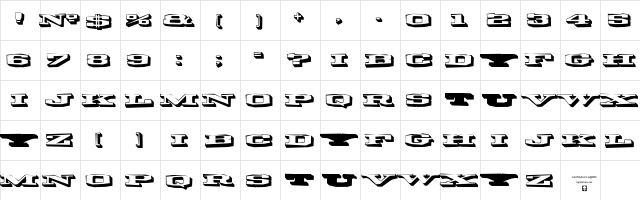
LHF Pullman Train Shadow Regular
| Foundry | John Studden for Letterhead Fonts |
| Designer | John Studden |
Design Context for LHF Pullman Train Shadow Typeface
LHF Pullman Train Shadow is built around its visual character rather than neutral utility — its distinctive forms are designed to make an impression at display sizes.
Font Pairing: Pair with a clean neutral sans-serif for body copy to let LHF Pullman Train Shadow's character lead without overwhelming the composition.
Pro Tip: Treat LHF Pullman Train Shadow as the centrepiece of your typographic hierarchy. One strong heading set in a decorative face can carry an entire layout.